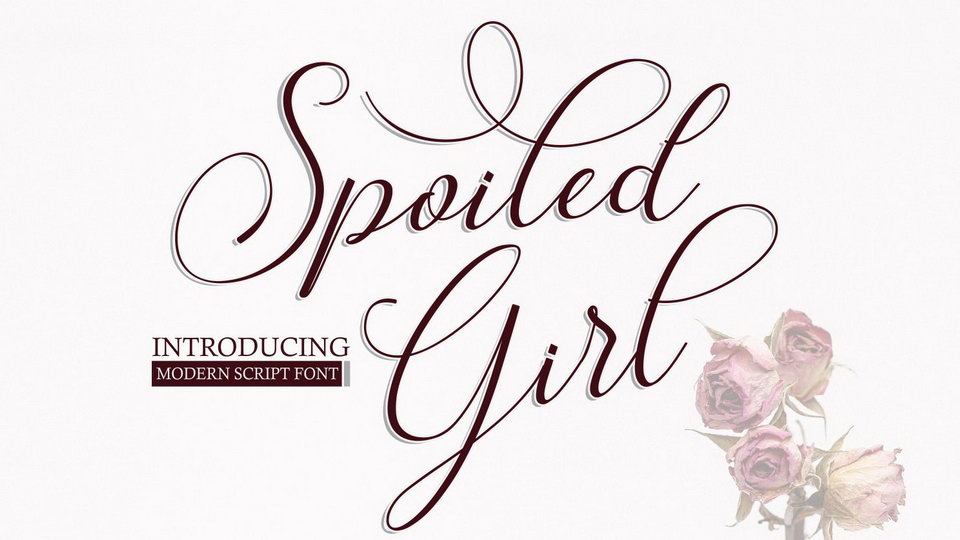
Download Spoiled Girl font, a wonderful connecting script with a dancing baseline, designed to convey elegance and style. It’s clean, feminine and friendly so it’s suitable for wedding decoration, fashion magazines, cards, letters, social media and more.